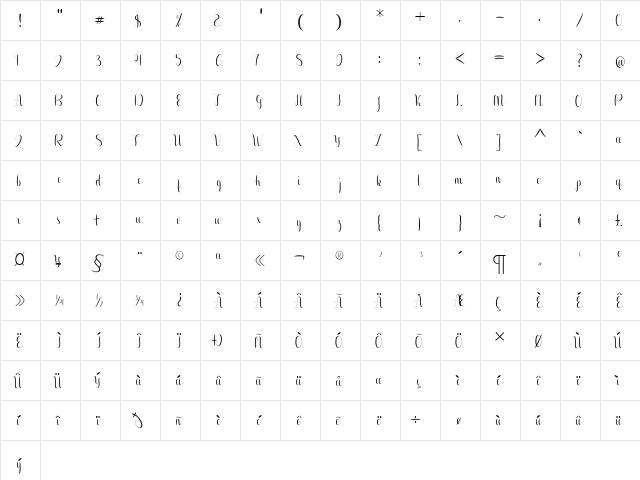
Aurelia regular Regular
Design Context for Aurelia regular Typeface
Aurelia regular offers clean, dependable letterforms without strong stylistic allegiance, making it a practical choice for designers who need flexibility.
Pro Tip: Use Aurelia regular in both headline and body roles to test its range before committing to a single application.